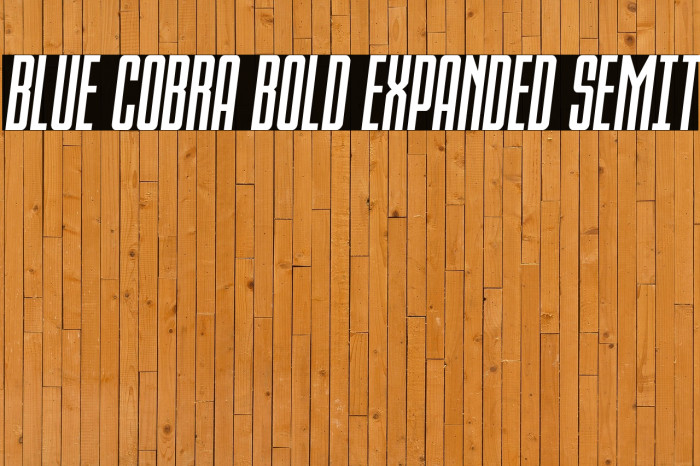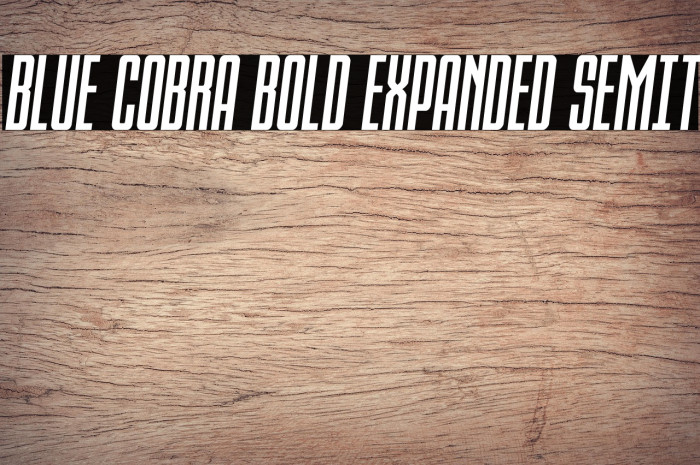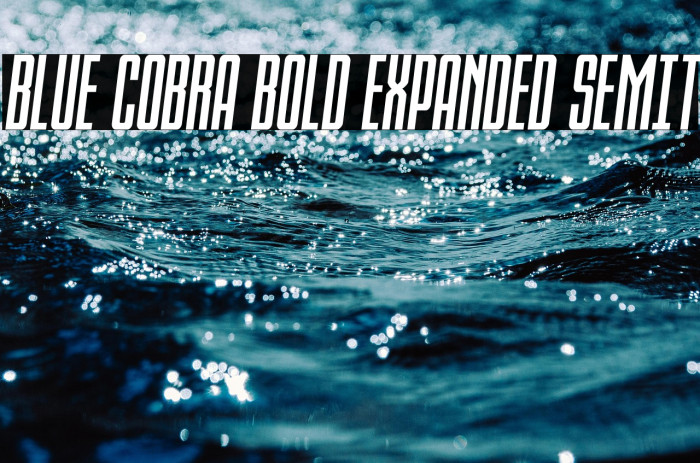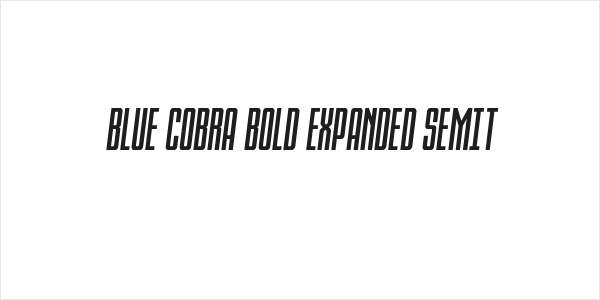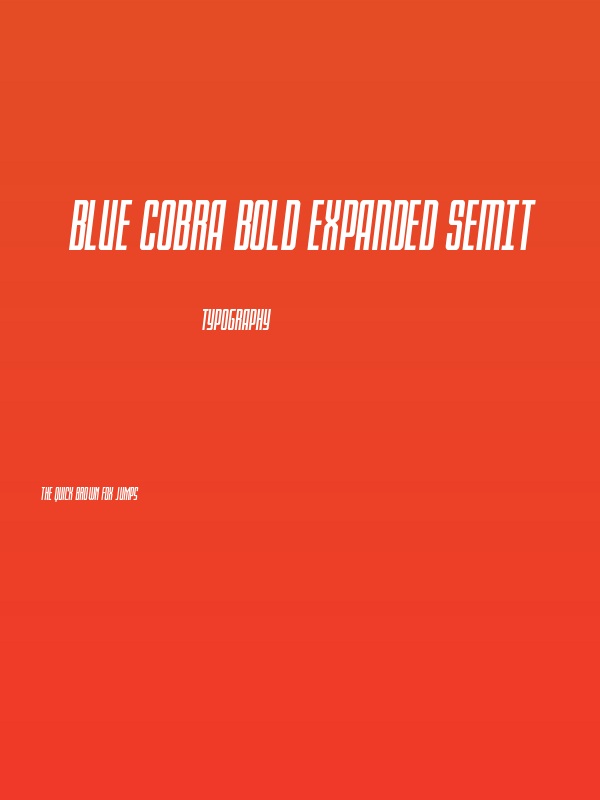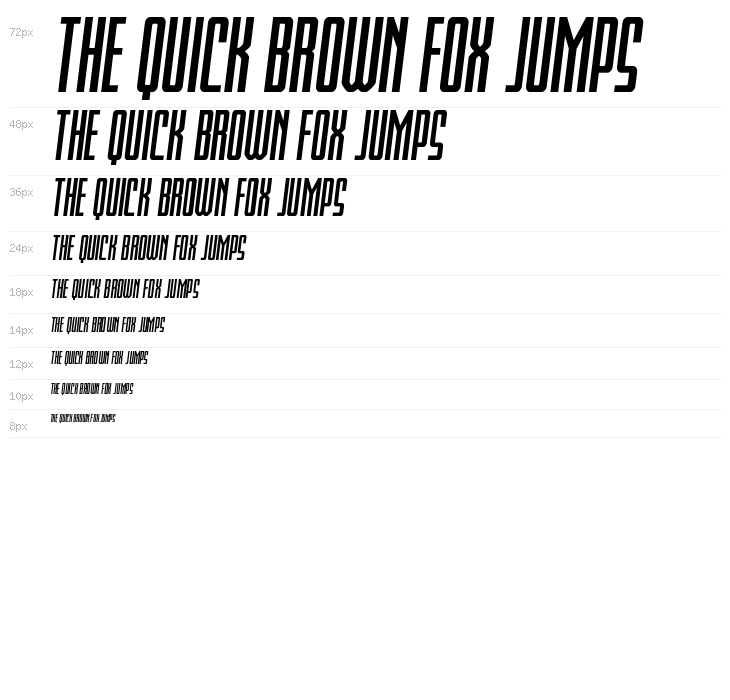
Blue Cobra Bold Expanded SemIt Font
Blue Cobra Bold Expanded SemIt Description
This font features a bold and expanded style with a semi-italic slant, giving it a dynamic and energetic appearance. The characters are tall and narrow, with a distinctive angular design that adds a modern and edgy feel. The uppercase and lowercase letters maintain a consistent height, contributing to a uniform look across text. The numbers and special characters are designed to match the overall aesthetic, ensuring a cohesive appearance. This font's expanded width and bold weight make it highly visible and impactful, suitable for making strong statements.
| Proposed Projects | Ideal for sports branding, dynamic posters, attention-grabbing headlines, and modern logo designs. |